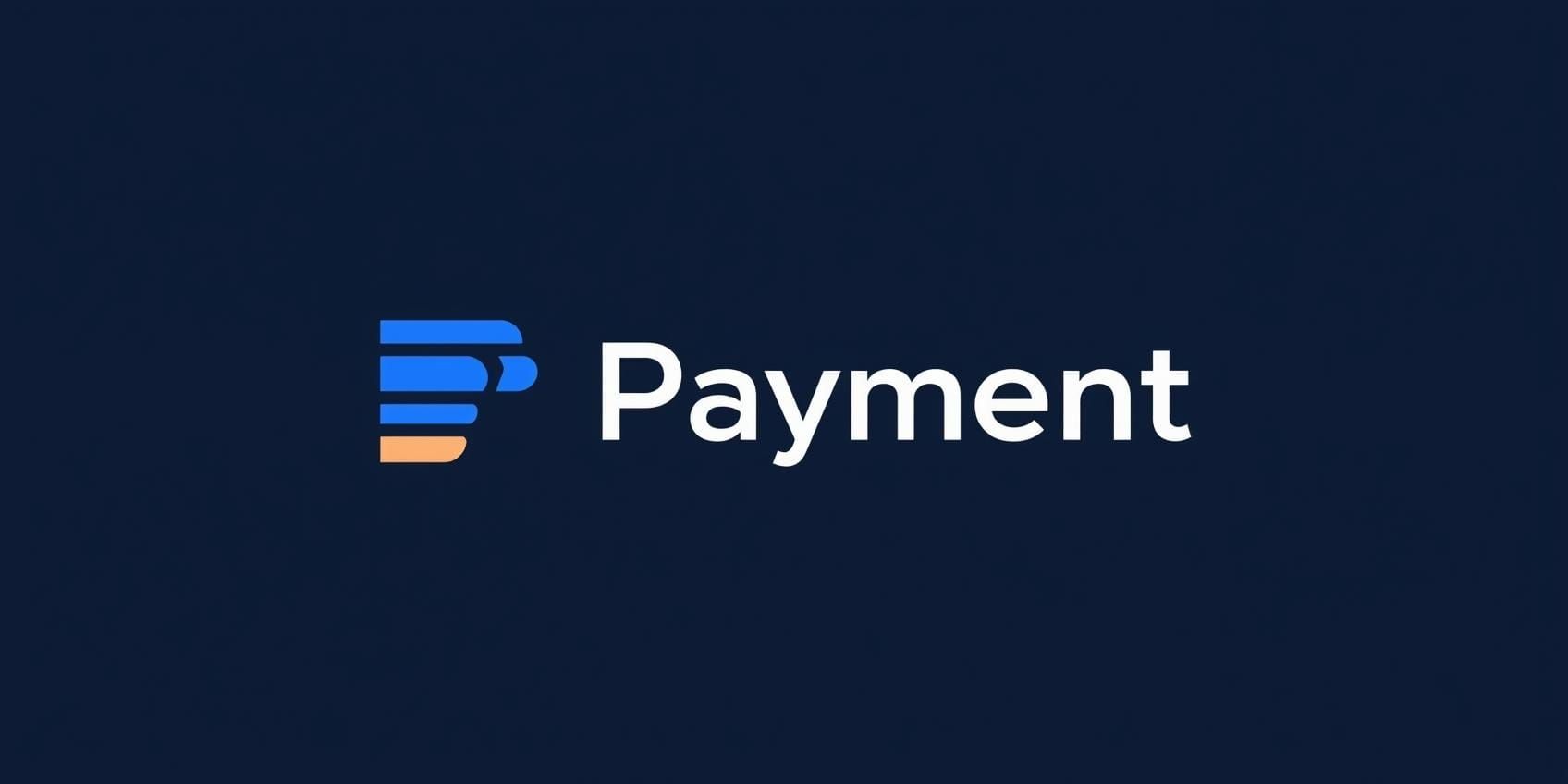
Startup Logo Ideas for Payments Apps: Simple and Secure
If you’re building a payment product, your logo has a tough job. It needs to feel safe, modern, and instantly recognizable at small sizes. That’s why startup logo ideas for payments apps should prioritize clarity over cleverness. When people are trusting you with money, every detail matters, like shape, spacing, typography, and the “calm” your brand gives off in one glance.
Below is a practical ideas list you can use for brainstorming, plus typography suggestions to help your mark look premium across app icons, web headers, and card designs.
Why “Simple and Secure” Wins for Startup Logo Ideas for Payments Apps
Payments brands live in high-stakes moments, like checkout, transfers, payroll, subscriptions, refunds. Users want a brand that feels steady.
The best startup logo ideas for payments apps usually share three traits:
• Simple silhouette (reads at 24-32px)
• Trust cues (balance, symmetry, stability)
• Repeatable system (works as icon, wordmark, and lockup)
When your logo is too detailed, it falls apart exactly where it matters most, on phones.
App Icon First – The First Rule for Startup Logo Ideas for Payments Apps
Treat your icon as the “primary battlefield.” If it works in a square at small sizes, everything else gets easier.
Checklist:
• clear shape in a 1-color version
• no thin details that disappear
• strong negative space
• looks good on light and dark backgrounds
A lot of startup logo ideas for payments apps look great on a website mockup but fail as an app icon. Start small, then scale up.
Trust Shapes that Work for Startup Logo Ideas for Payments Apps
Certain shapes communicate stability without screaming “bank.”
1. Shield-inspired minimal mark
Not a literal medieval shield. Think, a softened badge shape or subtle shield outline that suggests protection.
2. Checkmark as a brand signature
A checkmark can mean “verified,” “paid,” or “approved.” The key is customizing it so it’s yours, unique angle, cut, or negative-space trick.
3. Lock + flow (security + movement)
A lock can feel old-school, but pairing “lock cues” with a modern flow line can balance security and speed.
These are reliable startup logo ideas for payments apps because they connect to what users care about, “my money is safe.”
Symbol Concepts for Startup Logo Ideas for Payments Apps (Modern, Not Generic)
Here are concept directions that tend to look fresh when executed with restraint:
1. Tap / contactless wave (2-3 arcs, minimal)
2. Card corner + check (simple geometry)
3. Coin edge abstraction (no literal coin clipart)
4. Transfer arrows in a continuous loop (movement + reliability)
5. Split monogram (letterform with a secure “frame”)
6. Secure “vault” square (rounded square within square)
7. Verified badge dot (iconic dot + shape system)
8. Handshake simplified (only if you can keep it clean)
9. Lightning “fast pay” (be careful, can feel risky if too sharp)
10. Bridge motif (connection, stability, network)
Strong startup logo ideas for payments apps are less about the object and more about the feeling the object creates.
Wordmark-First Branding for Startup Logo Ideas for Payments Apps that Scale
Some of the strongest fintech and payments brands lean on a wordmark because it’s:
• instantly readable
• easy to apply
• flexible across products
For startup logo ideas for payments apps, consider:
• Pure wordmark (name only)
• Wordmark + small icon
• Monogram icon + wordmark
If your app name is short (4-8 letters), a wordmark can be your best “simple and secure” choice.
Typography Matters Most for Startup Logo Ideas for Payments Apps with Type Strategy
Payments logos often win on typography more than symbols. Why? Type communicates trust fast.
What to look for in type
• clean shapes, consistent stroke weight
• stable curves (not overly playful)
• strong readability at small sizes
• subtle personality (so you’re not “just another fintech”)
A smart type choice makes startup logo ideas for payments apps feel premium even with a very minimal icon.
Quick Wordmark Tuning Tips for Payments Brands
Most “professional” wordmarks come from spacing and details, not exotic fonts.
For your startup logo ideas for payments apps, apply these:
• Slightly tighten tracking for short names (but keep it readable)
• Fix tricky pairs: AV, To, Yo, Pa, rr, tt
• Consider a custom detail: clipped terminal, angled dot, or custom “a”
• Test at tiny sizes (favicons + app icon labels)
Your logo should look confident at 16-24px, not only at hero size.
Color and Contrast – Support The “Secure” Feeling